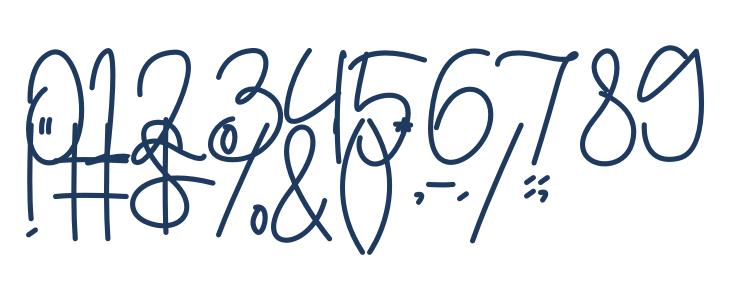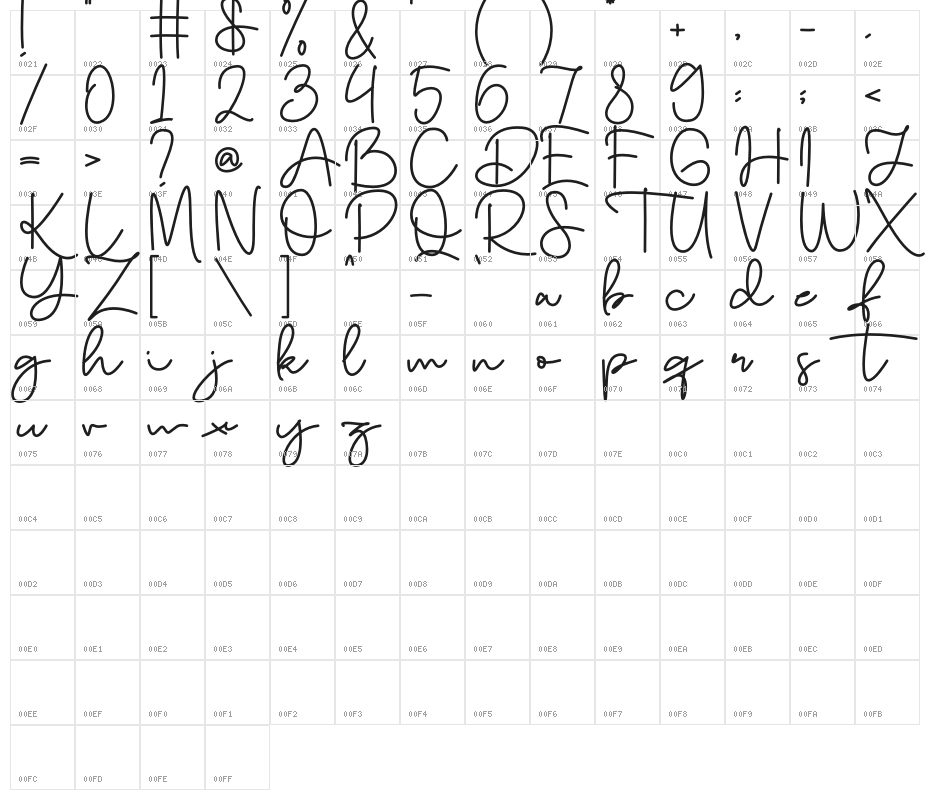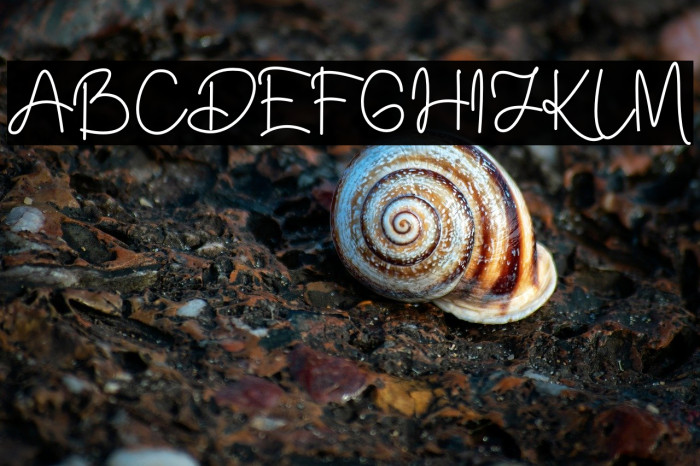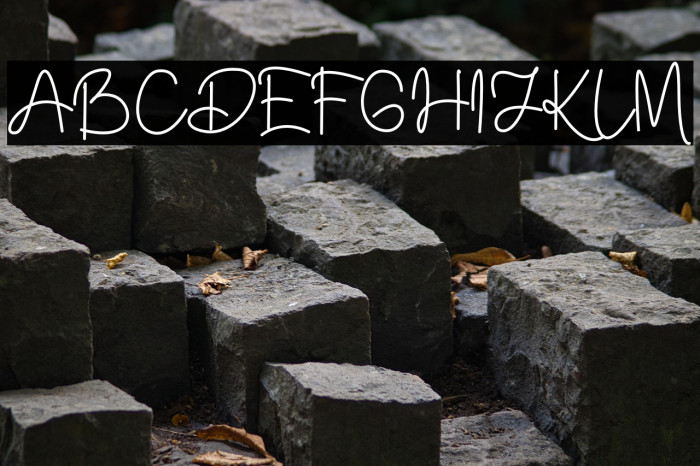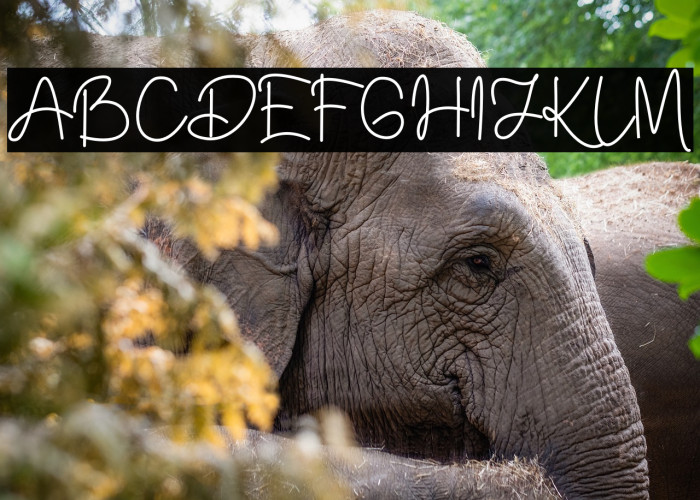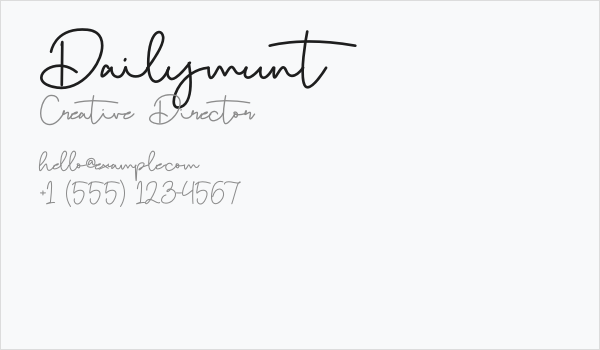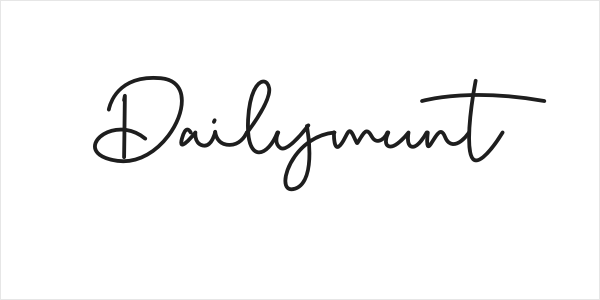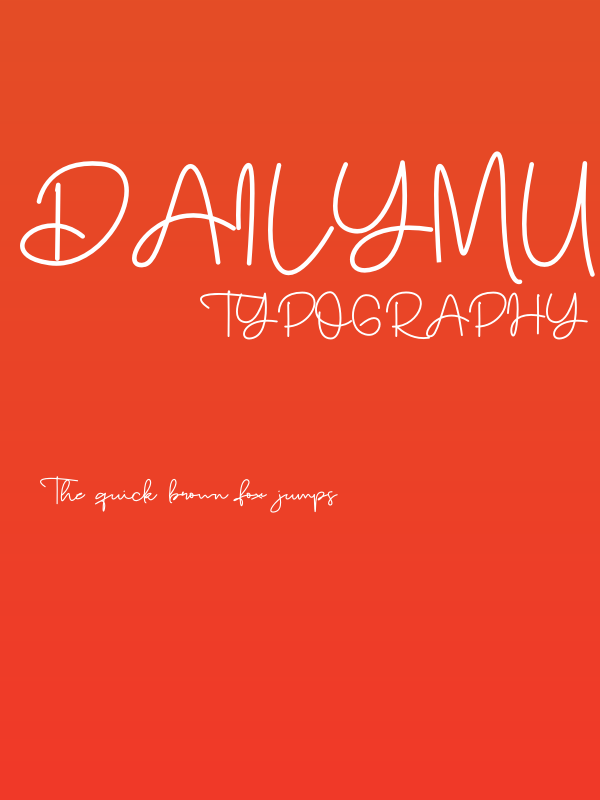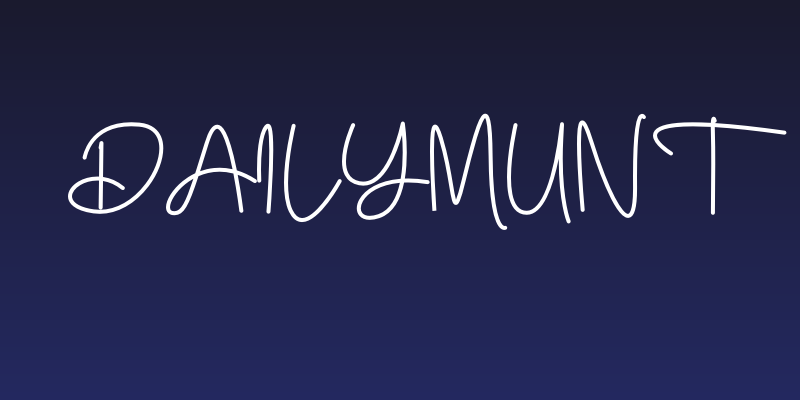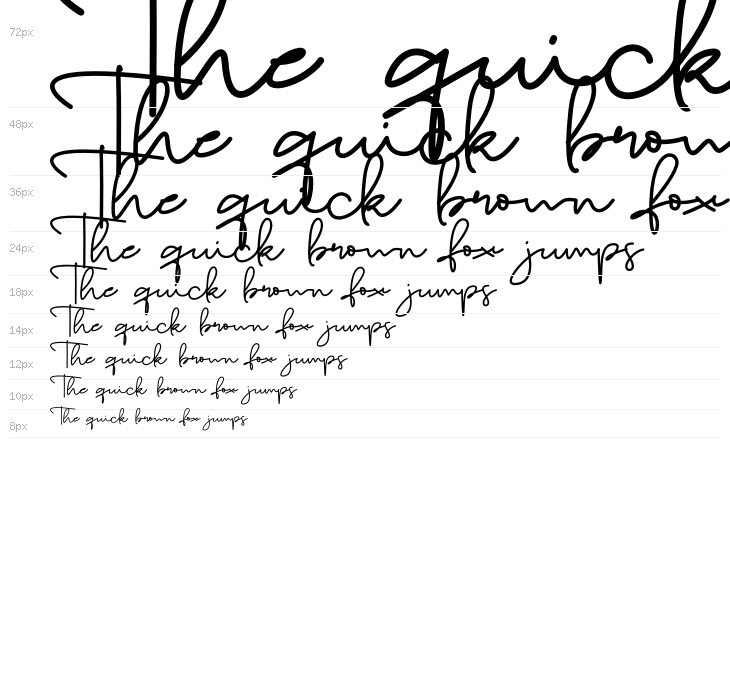
Dailymunt Font
Dailymunt Description
This font features a playful and dynamic handwritten style, characterized by its fluid and continuous strokes. The uppercase letters exhibit a whimsical flair with varying line thickness, while the lowercase letters maintain a smooth and flowing appearance. The numerals are consistent with the overall style, offering a casual yet legible look. Special characters are creatively integrated, adding to the font's charm. The overall design is informal and expressive, making it suitable for projects that require a personal touch.
| Use Case | Logos, Headlines, Invitations |
| Proposed Projects | Ideal for greeting cards, personal branding, social media graphics, and creative invitations. |